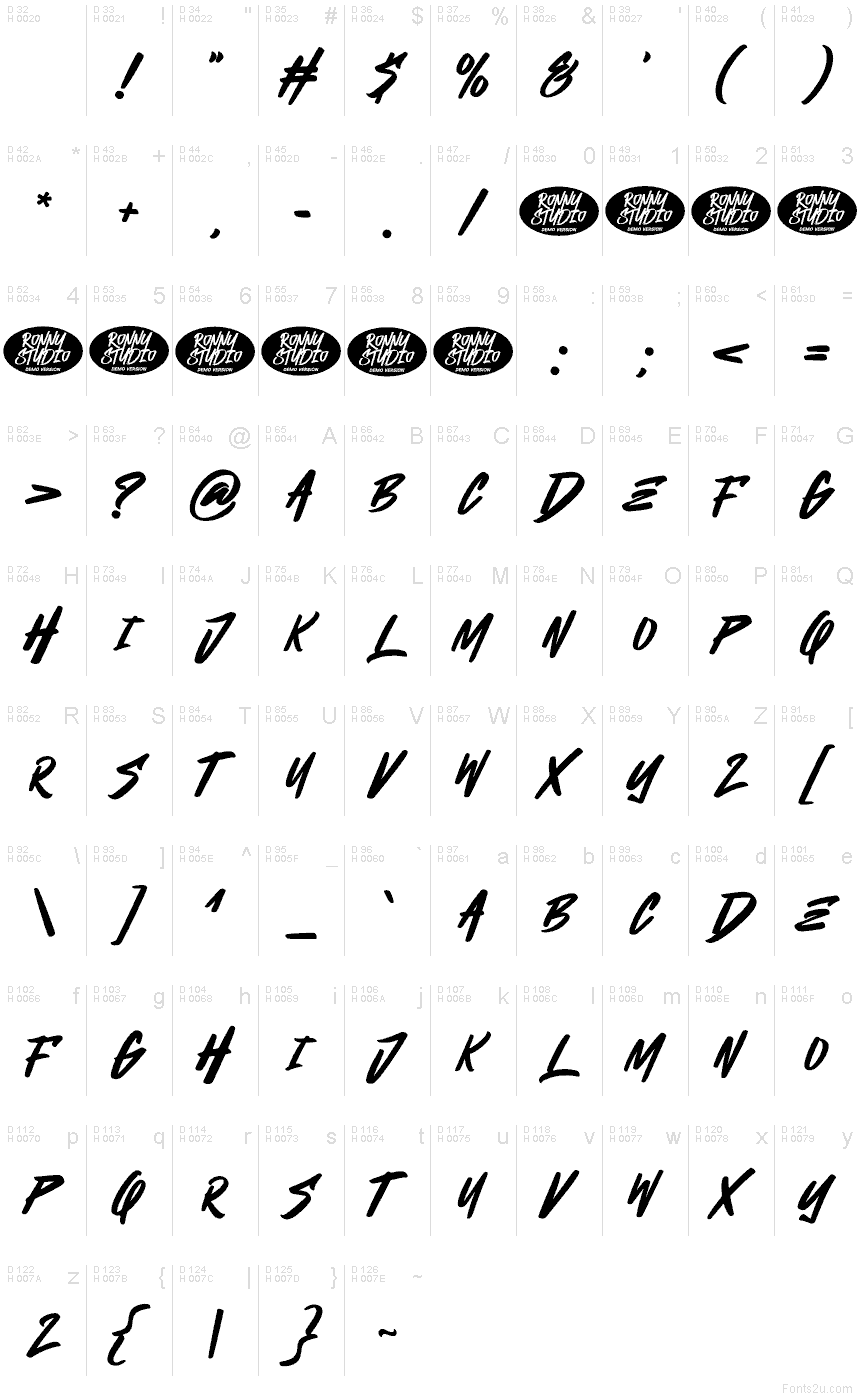
Thrashlane DEMO
Thrashlane font by Ronny Studio is a condensed brush font with an urban street style. Displaying graffiti-inspired rugged designs, it has aggressive characters with an edgy feel that is rebellious and energetic. Each element of this free font combines to provide a chaotic and darkly futuristic vibe.
Use Thrashlane for video game designs, album cover artwork, poster designs, packaging designs, book covers, branding designs, logos, and magazine covers. It can also be used for movie titles/ending credits and any other typographic needs achieved through print or digital platforms.